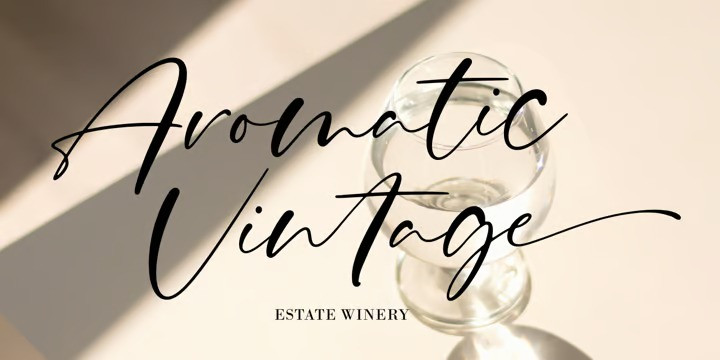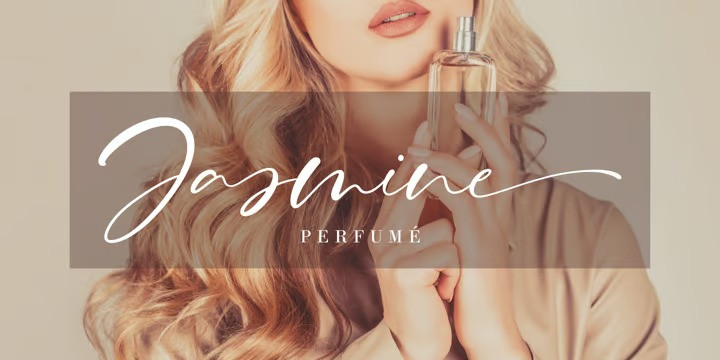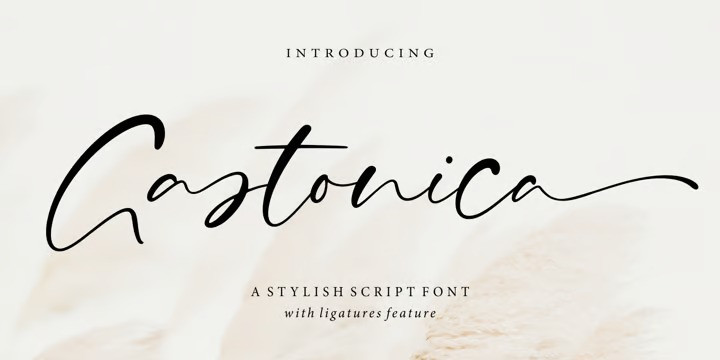
Gastonica Font
Gastonica Font – A stylish script font! Gastonica is a stylish handwritten script font designed with love and completely hand-drawn. Every letter created, shows a flow that looks elegant and stunning.
Gastonica also has several ligatures to add an organic feel to every word that is displayed. It’s the perfect choice for stylish branding & logo projects, product packaging, handwritten quotes, editorial design, and more.